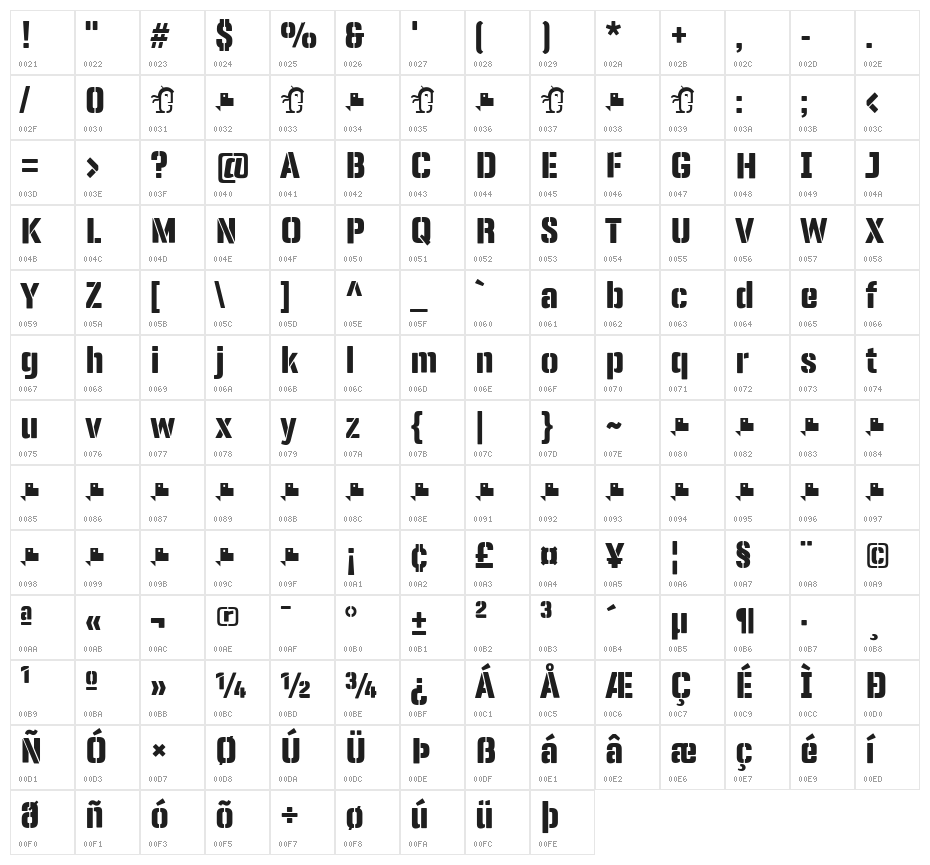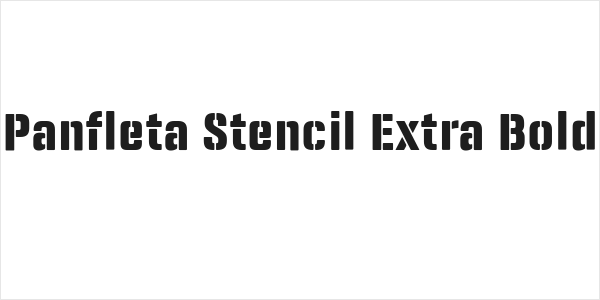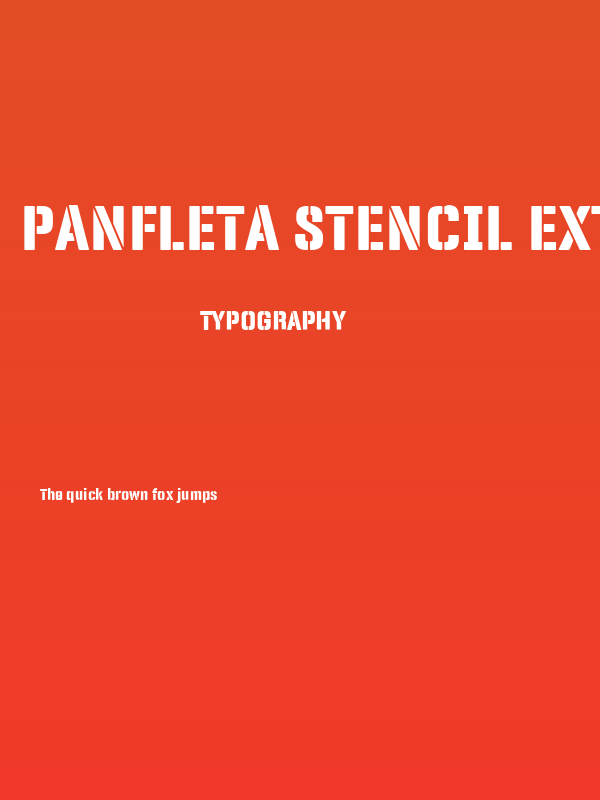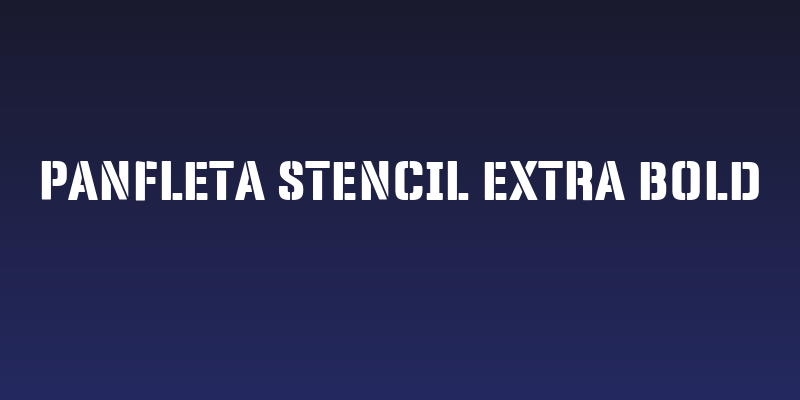
Panfleta Stencil Extra Bold Font
Panfleta Stencil Extra Bold Description
This font features a bold, stencil design with strong geometric shapes and high contrast. The uppercase and lowercase letters are characterized by their thick, blocky appearance, with distinct cut-out sections that create a stencil effect. The numbers and special characters maintain this bold, industrial style, making the font highly recognizable and impactful. Its robust and commanding presence makes it ideal for attention-grabbing designs. The font's design is consistent across all characters, providing a cohesive and uniform look.
| Proposed Projects | Perfect for posters, signage, branding, and any project requiring a strong, industrial aesthetic. |